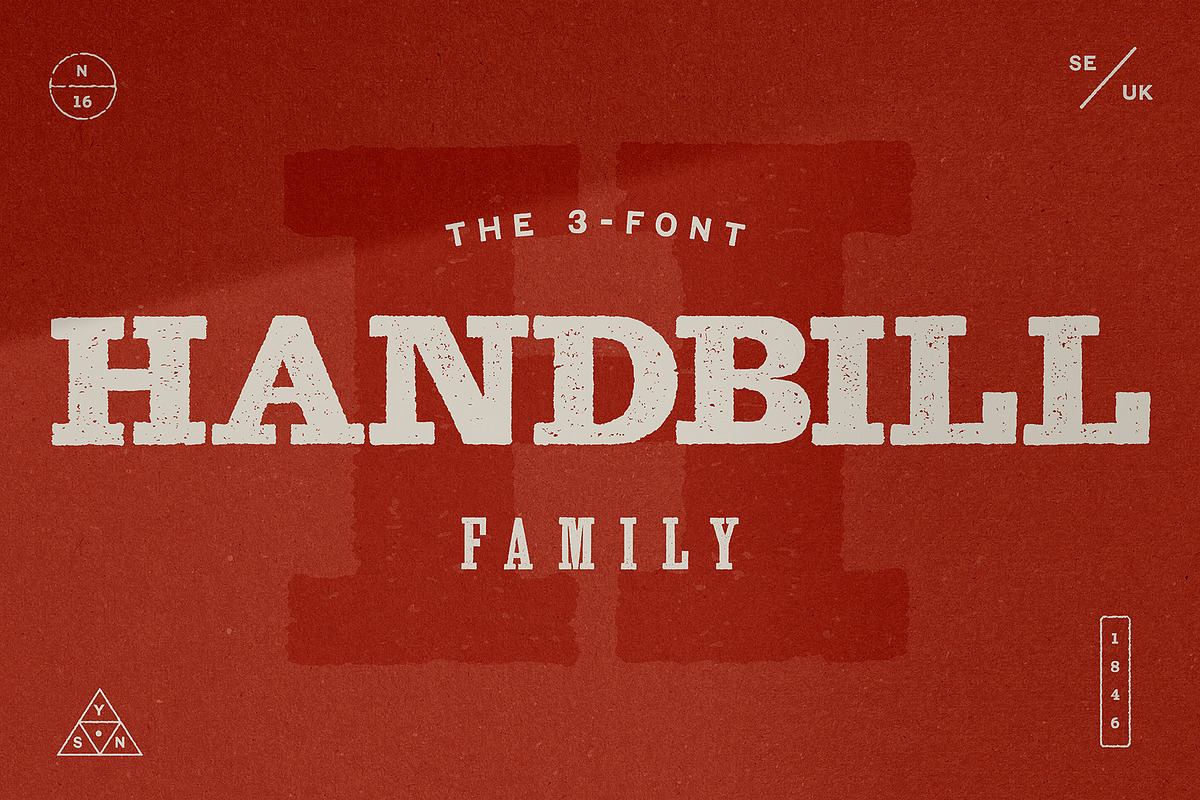
Handbill: Letterpress Type Family Free Download is a distinctive and vintage-inspired typeface family that captures the charm and texture of traditional letterpress printing. With its bold, weathered appearance and wide range of weights, this font family is perfect for creating retro-inspired logos, posters, invitations, and more. Its timeless design adds a unique, handcrafted feel to any project, giving your work an authentic, vintage touch.